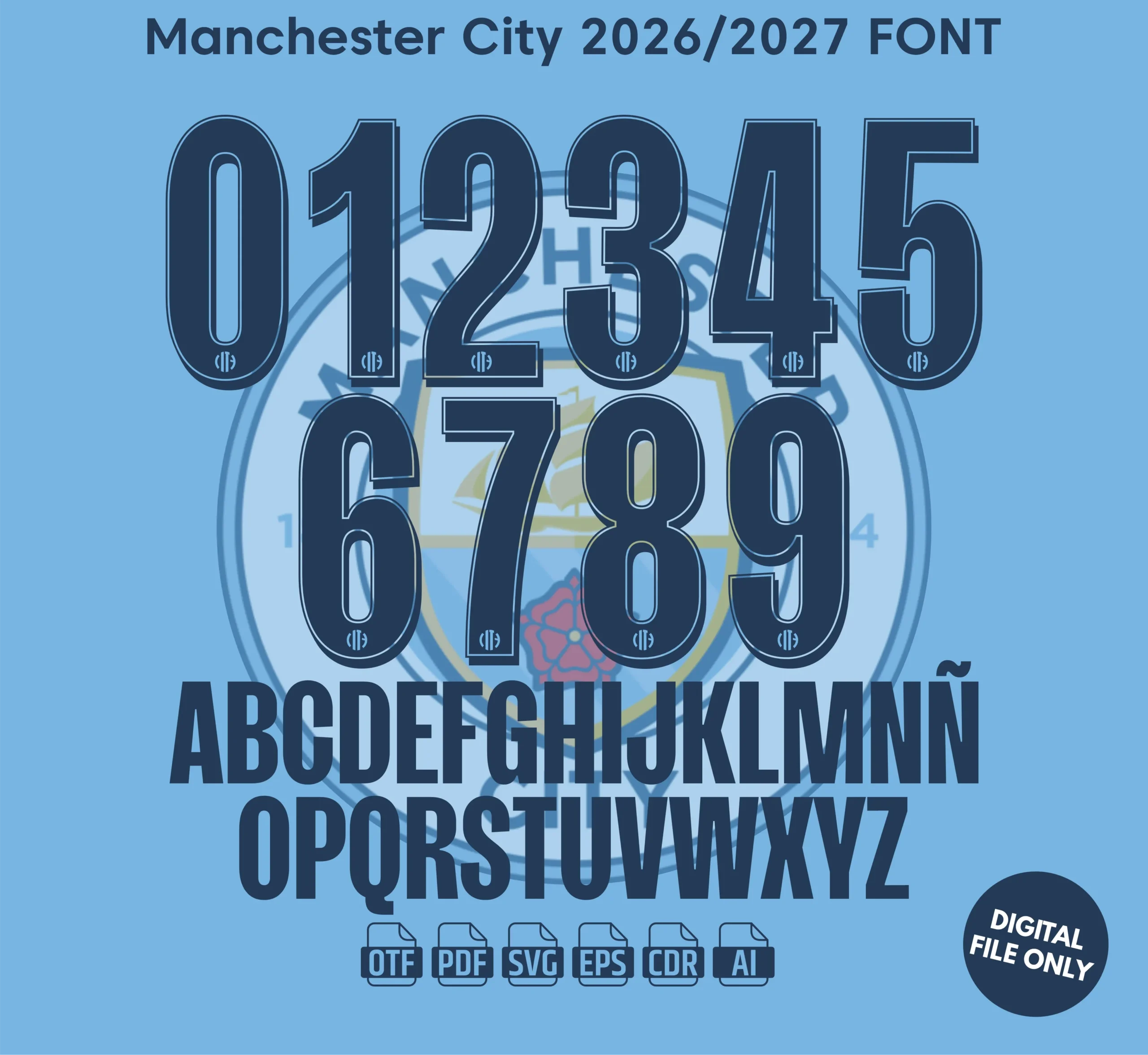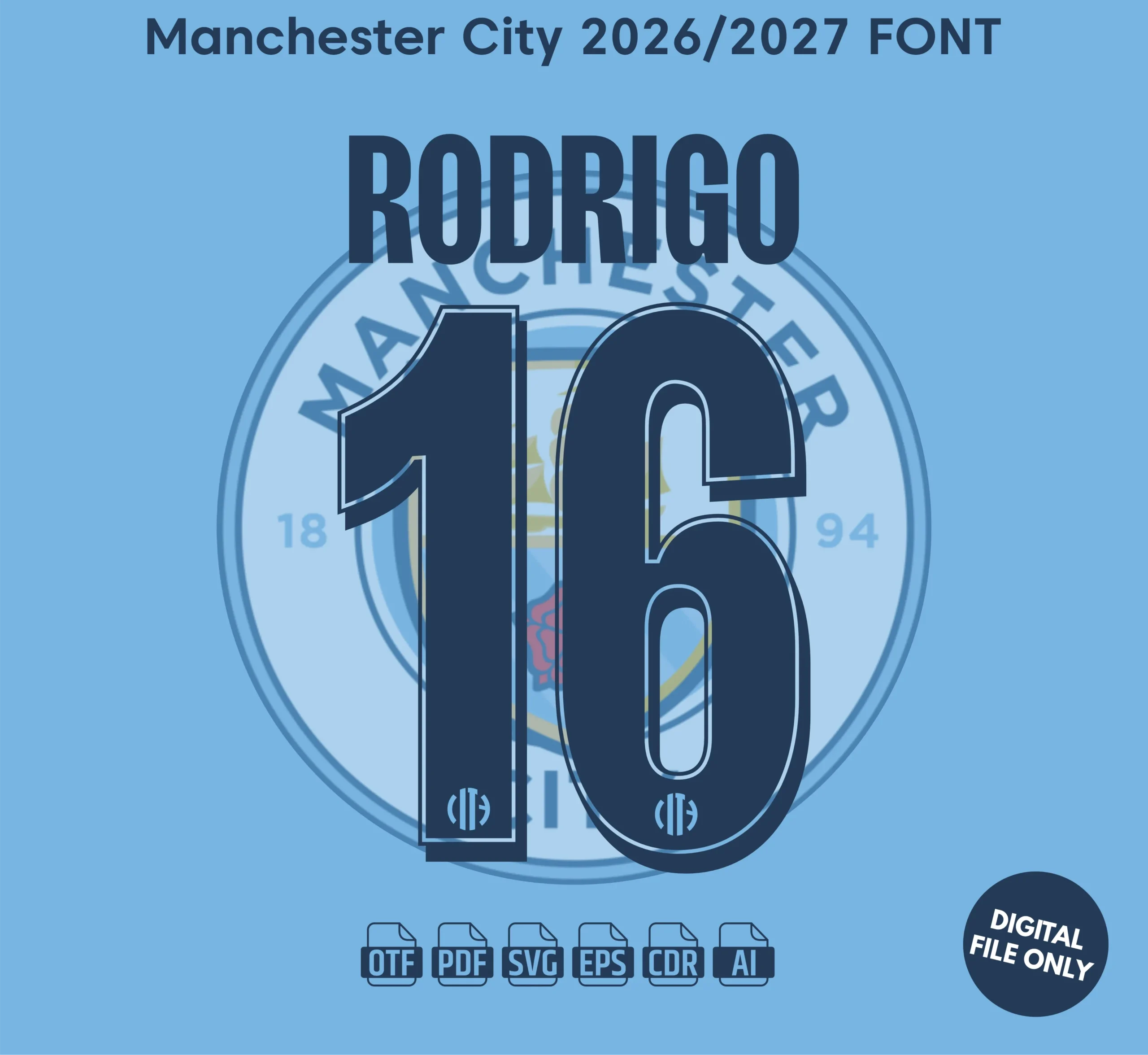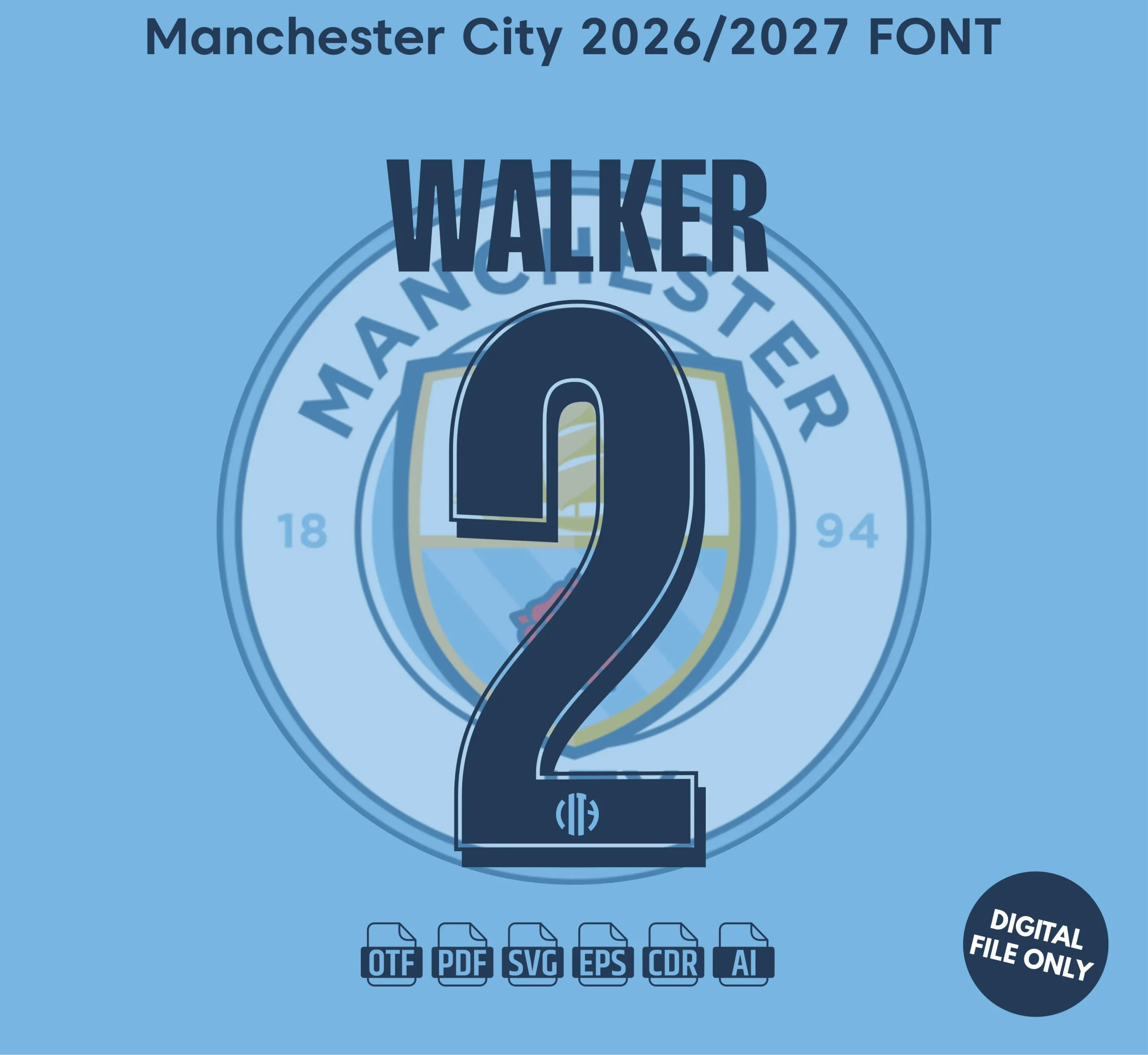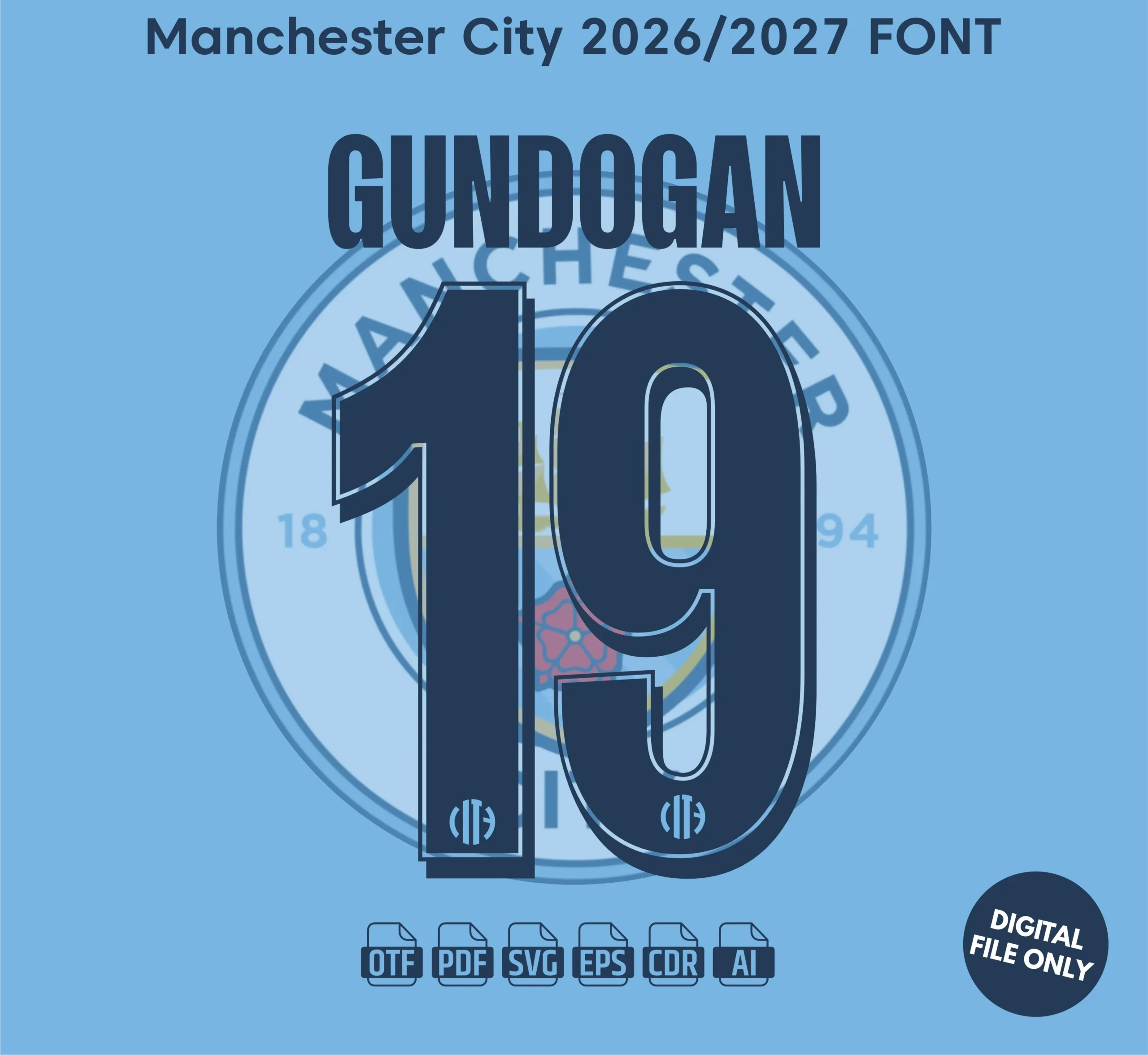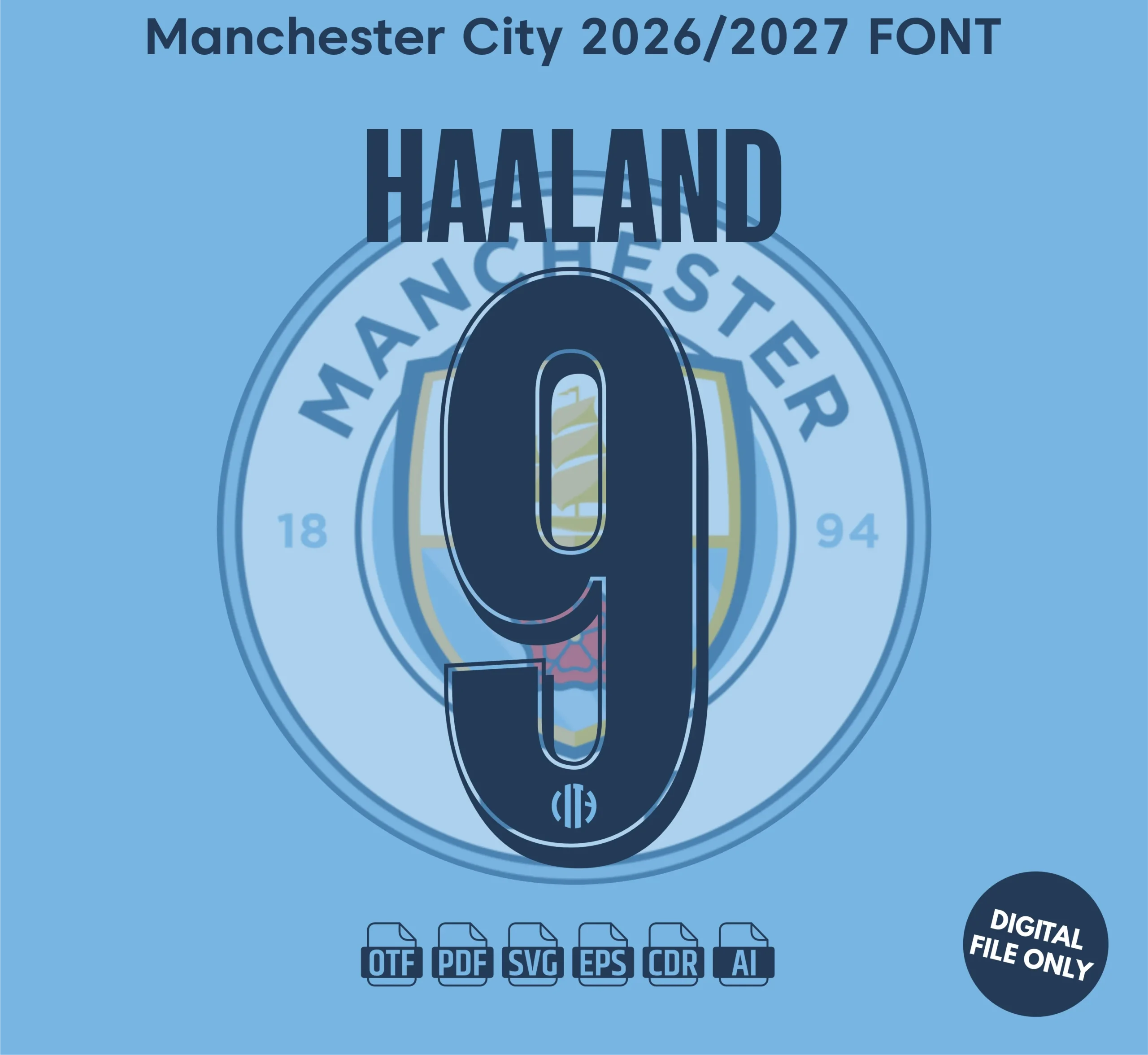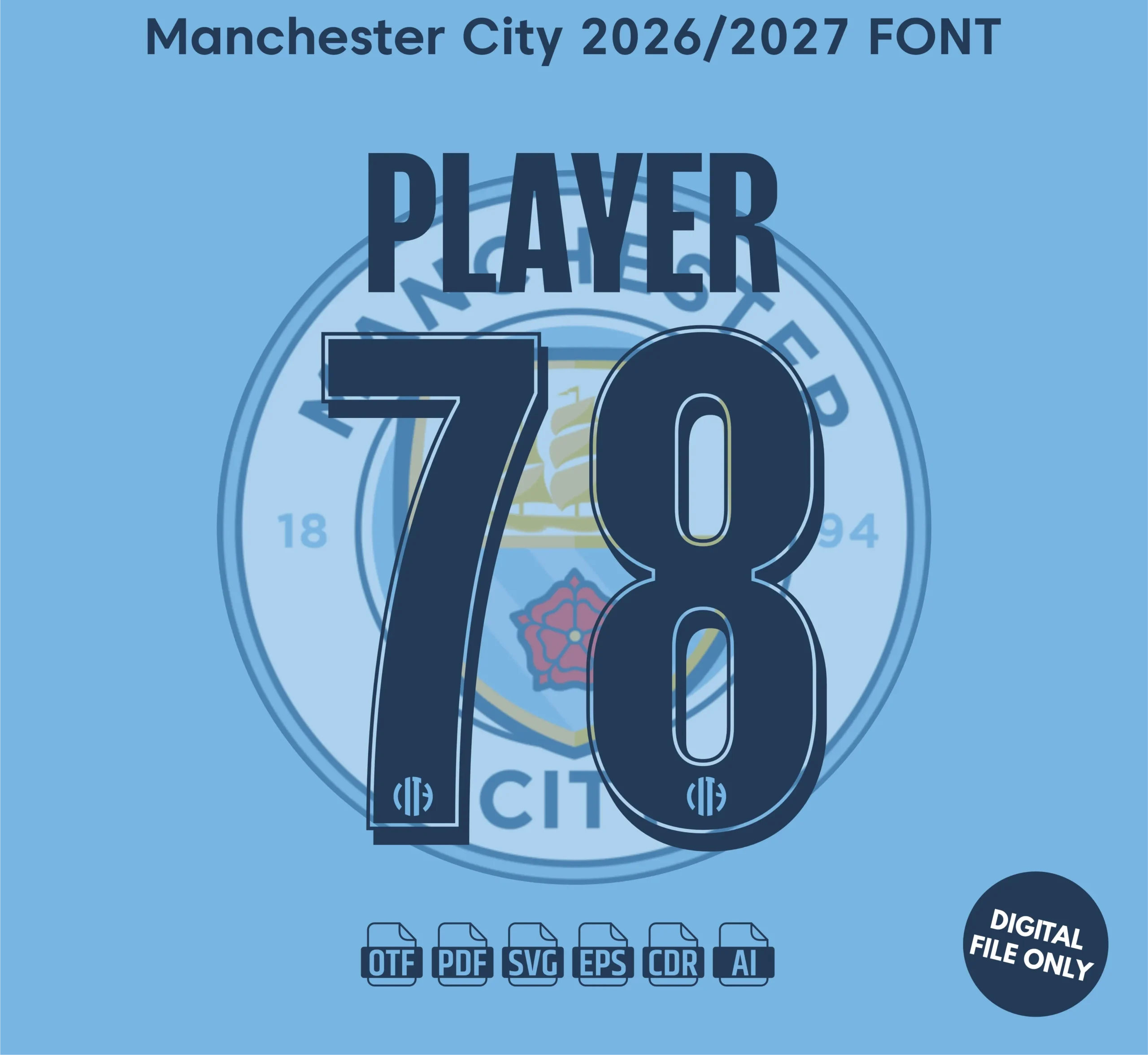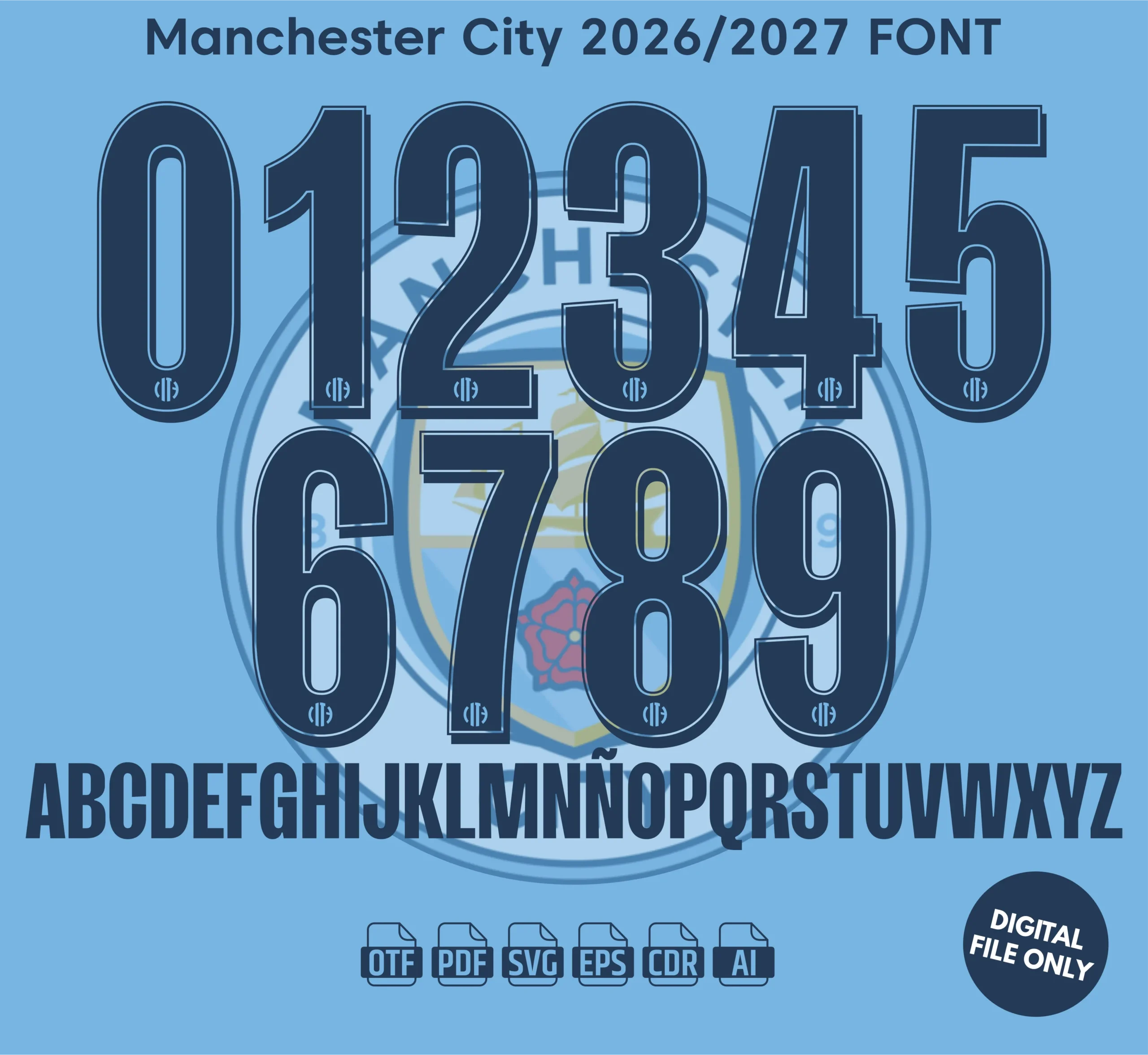
Manchester City 2025-26 Font – Football Jersey Typeface Download
Manchester City 2025-26 Font – Premium Football Jersey Typeface
Give your designs an authentic match-day look with the Manchester City 2025-26 font, a jersey-style typeface built to match the bold, clean lettering seen on modern professional football kits.
• Clean, authentic football-style typography
Built to mirror the lettering style seen on real football kits, this font gives your designs a sharp, professional, game-ready finish — whether you’re customizing a jersey, building a mockup, or creating branded sports content.